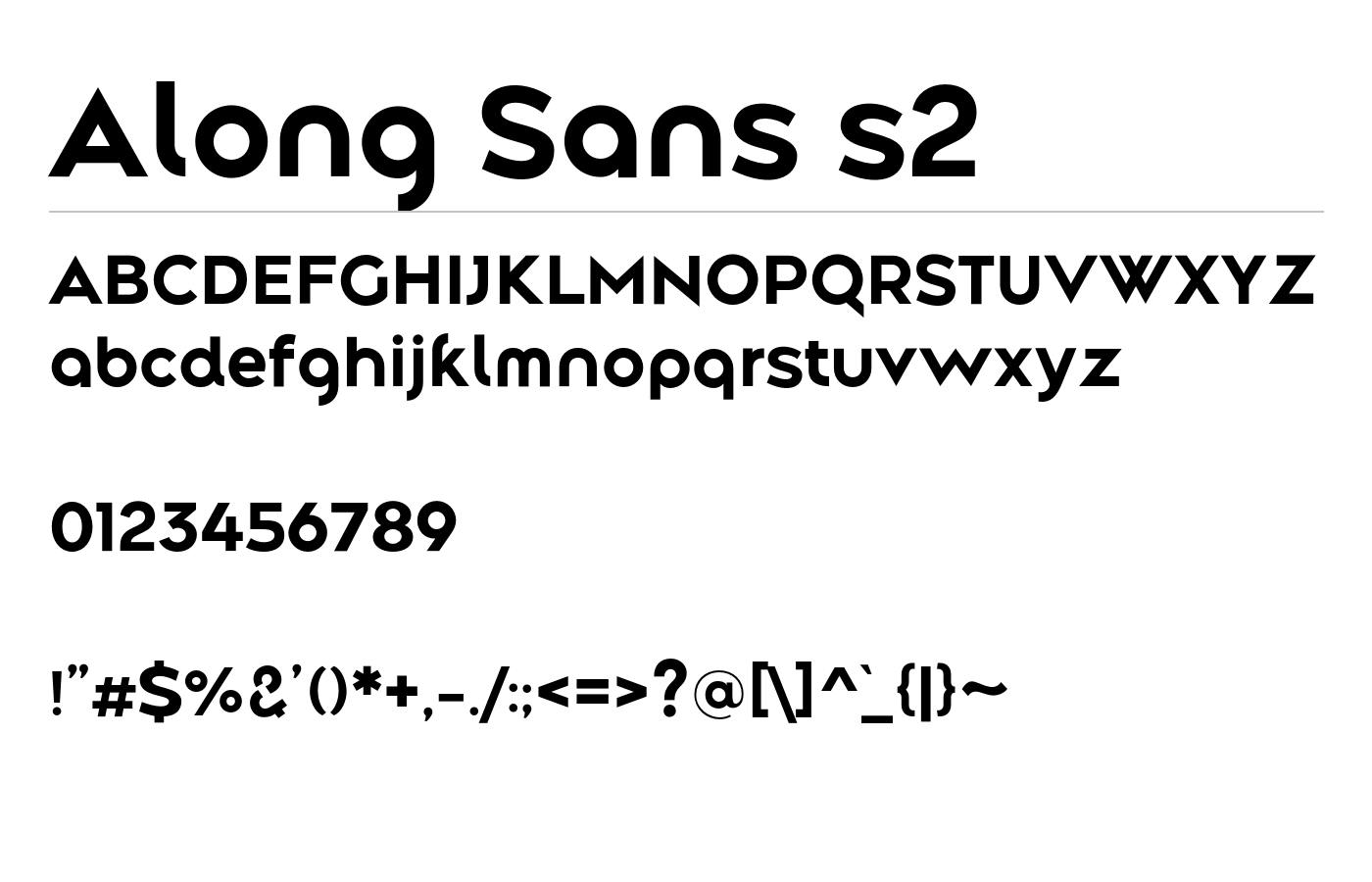
Along Sans s2 is a bold, modern sans serif font with a clean and geometric style that gives it a strong and confident appearance. Its high x-height and distinctive letterforms, such as the angled tail on the Q and creative shapes of characters like the g and ampersand, add a unique and contemporary touch. This typeface is well-suited for branding, headlines, and editorial design where a bold and stylish statement is needed.
Along Sans s2 Font